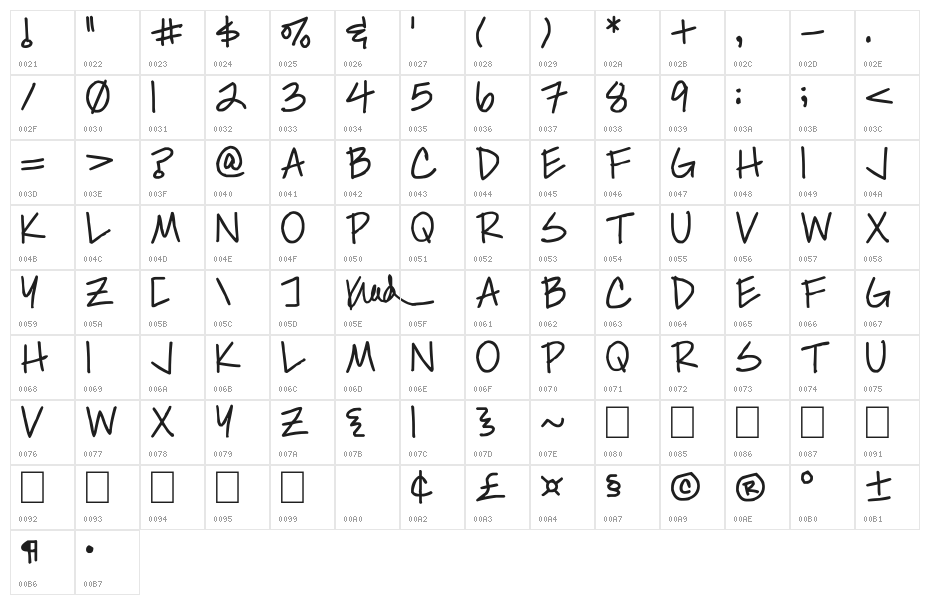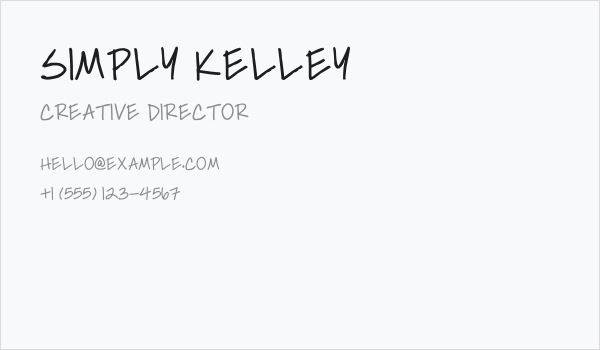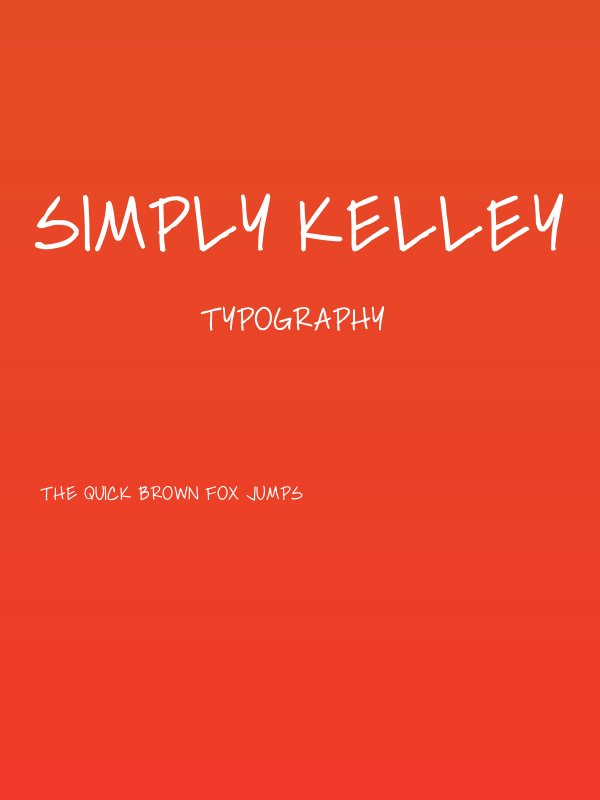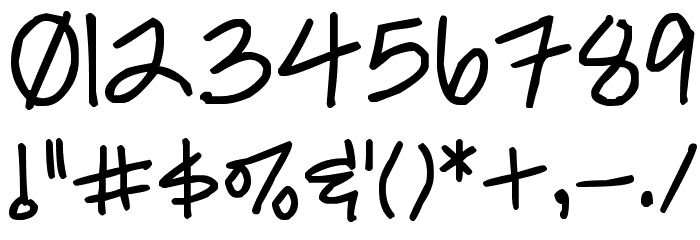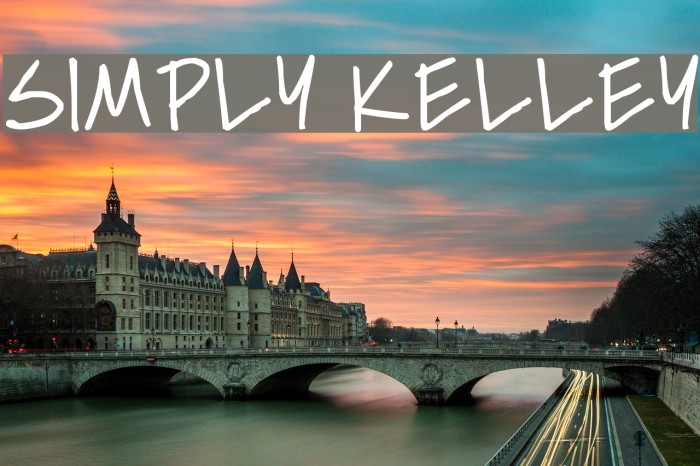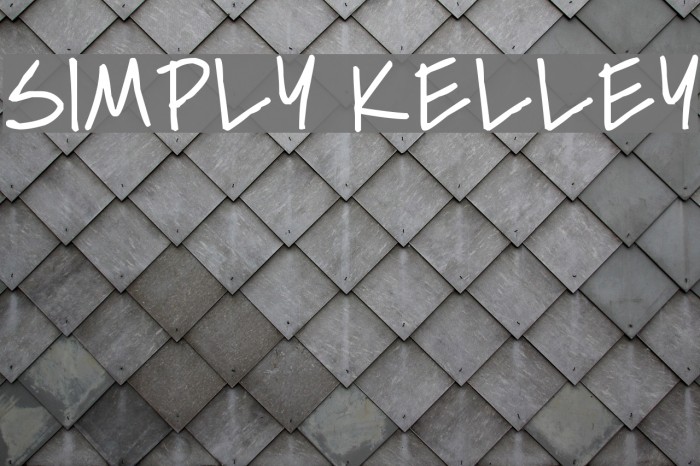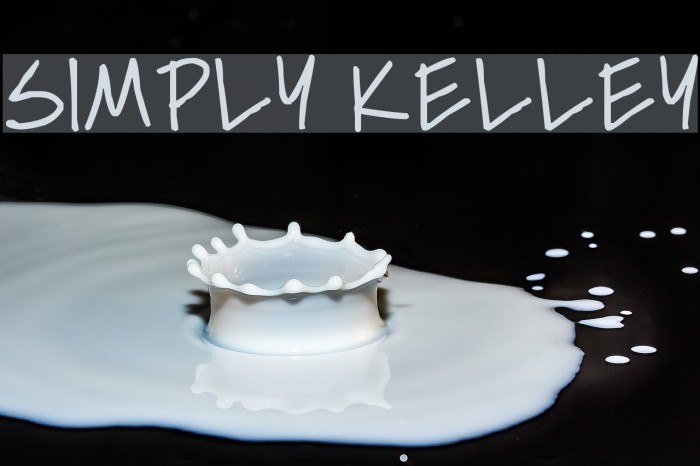
Simply Kelley Font
Simply Kelley Description
This font exudes a casual and playful handwritten style, characterized by its informal and relaxed appearance. The letters are slightly slanted, giving it a dynamic and lively feel. Each character is uniquely crafted, with varying stroke widths that add to its organic and natural look. The font maintains a consistent baseline, ensuring readability while still retaining its whimsical charm. The numerals and special characters complement the alphabet with the same handwritten flair, making it versatile for various creative projects.
| Proposed Projects | Ideal for greeting cards, children's books, personal blogs, and creative branding. |